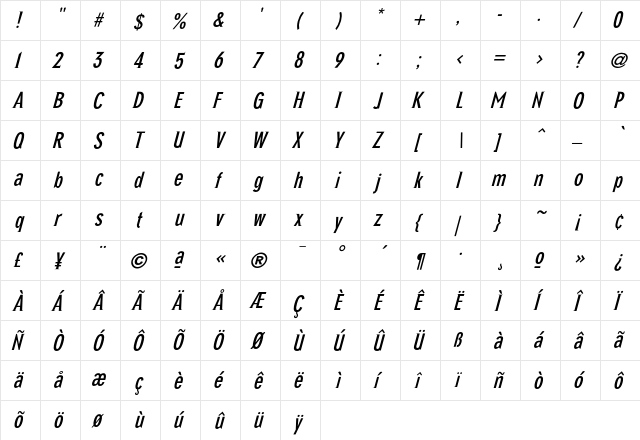
NewGlobal Italic
Design Context for NewGlobal Typeface
NewGlobal is a composed and adaptable typeface that performs quietly and consistently across a wide range of design contexts. The dynamic lean of this cut emphasises speed and emphasis in any layout.
Pro Tip: Use NewGlobal for emphasis, pull quotes, and subheadings where its slanted energy can add rhythm to the layout.